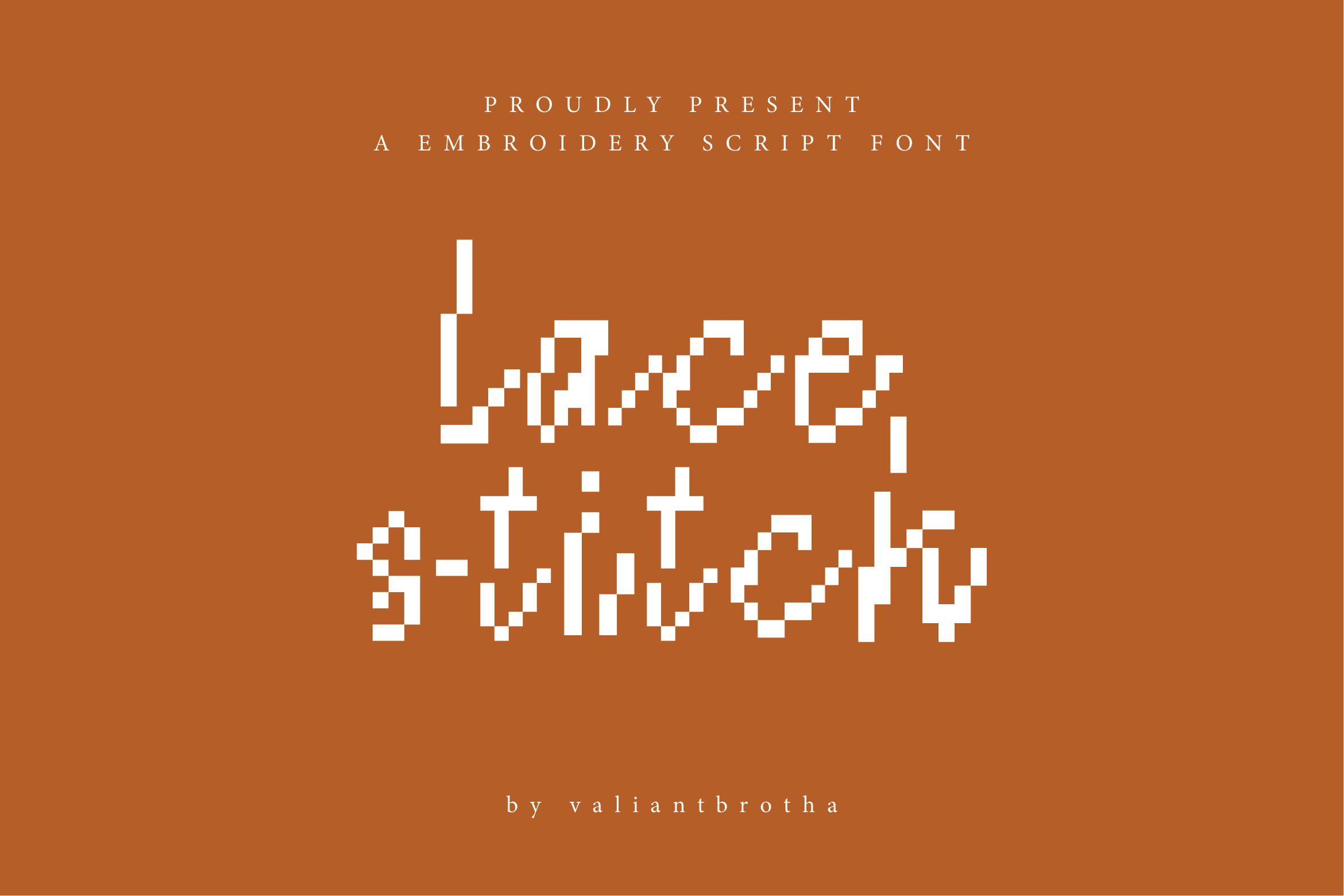
Lacestitch | A Embroidery Font
Lace Stitch is a -inspired embroidery script font that adds a unique, handcrafted touch to any design. Perfect for creating digital art that feels like a piece of fabric stitched with care.